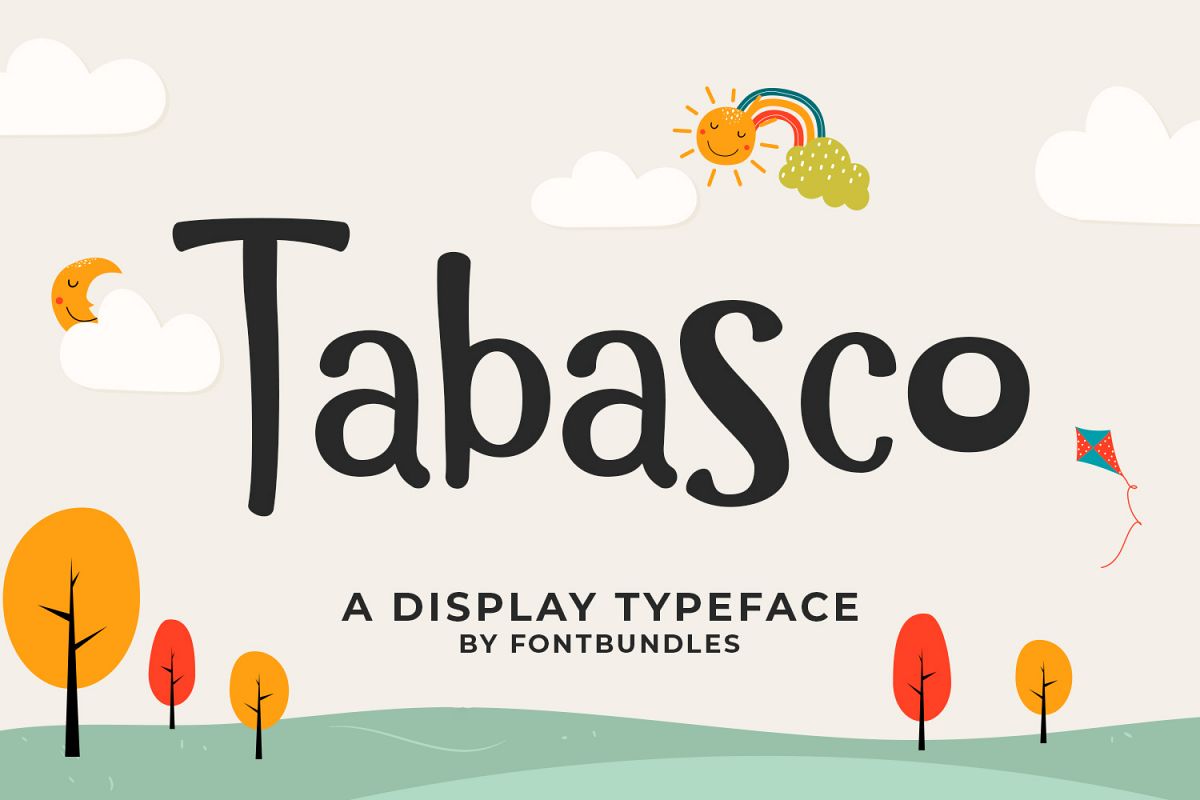
Tabasco is a joyfully display typeface. Perfect for display, text, print, branding, packaging, signage, with a set of optimal characters for your design in any layout.